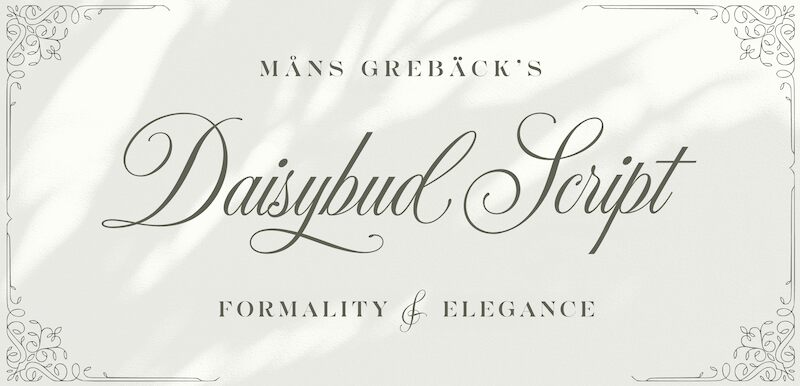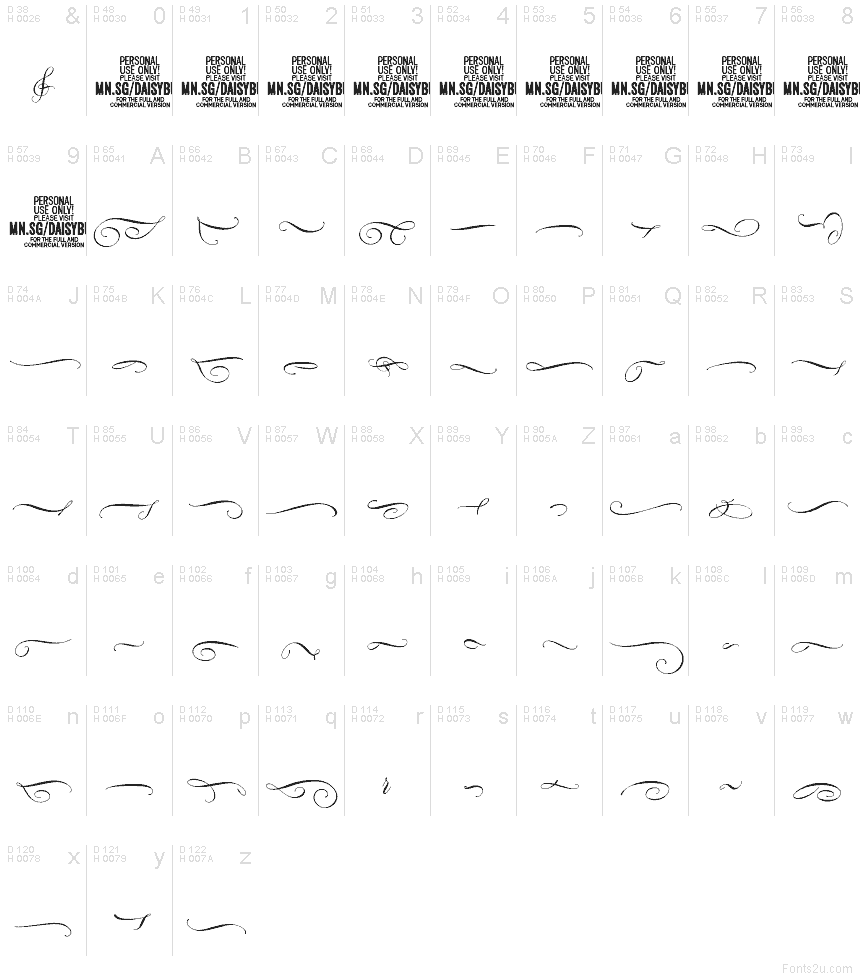
Daisybud Decorations PERSONAL Regular
Daisybud Script is a modern interpretation of an elegant and flourishing typeface.
The font has an fine, airy feel and with long, flowy connections, created for delicate headlines, a intricate logotypes or a custom invitation card for a beautiful event.
There is a calm and soft vibe to the swirly lines, adding to the sophistication.